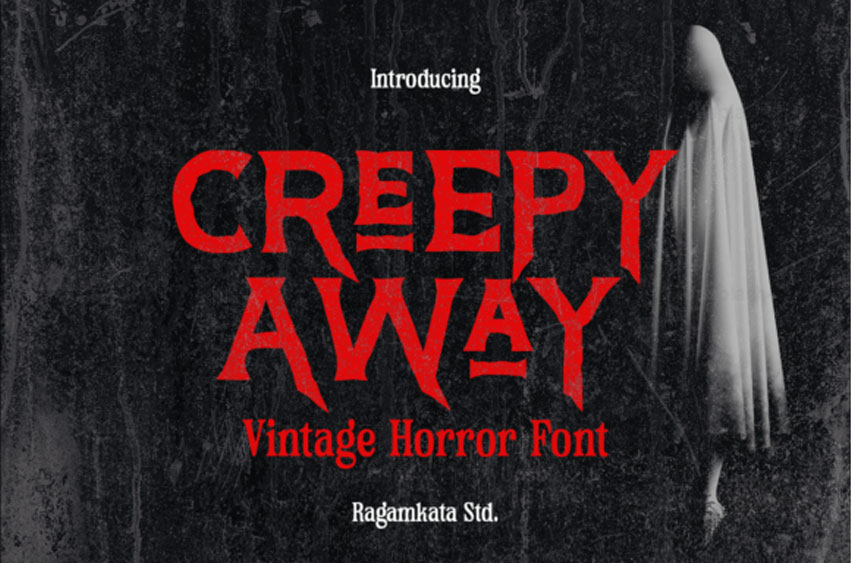
Creepy Away Font
Creepy Away Font is a vintage-inspired font with a chilling horror vibe. Its sharp, textured design exudes a spooky and mysterious atmosphere, making it perfect for a variety of eerie-themed projects.
Whether you’re creating Halloween invitations, horror movie posters, or haunting social media graphics, “Creepy Away” brings a retro yet terrifying charm to your designs.